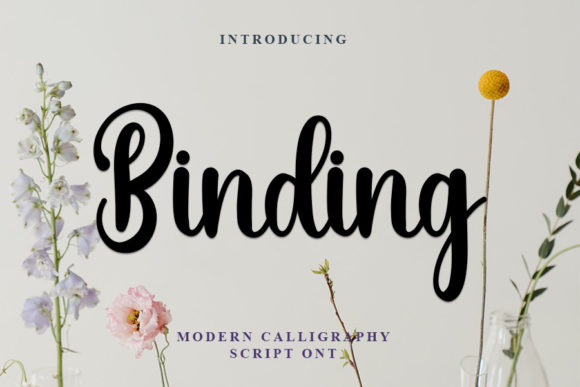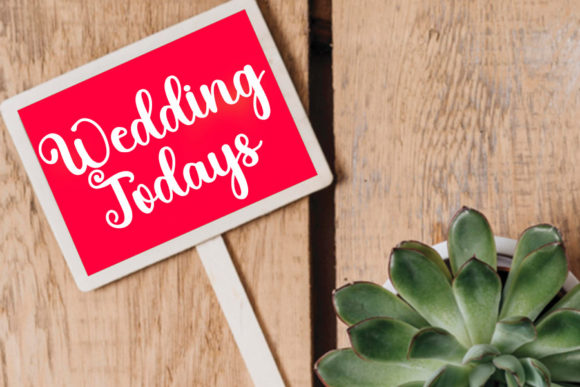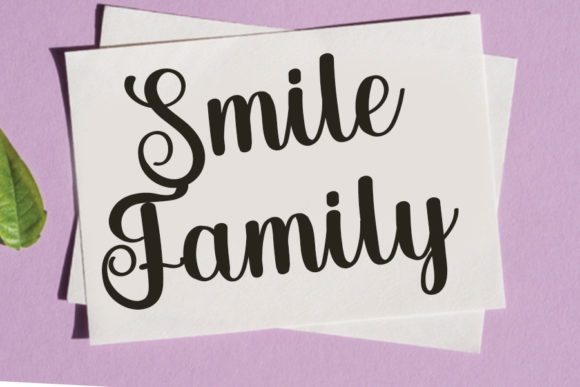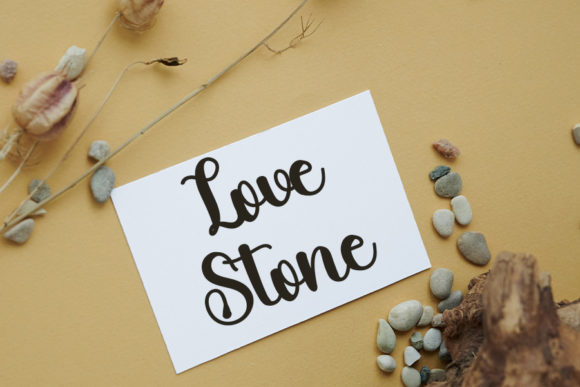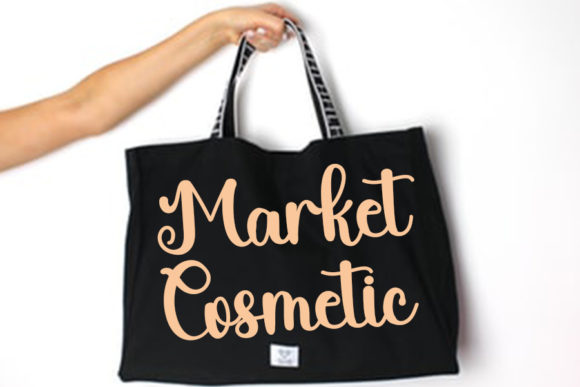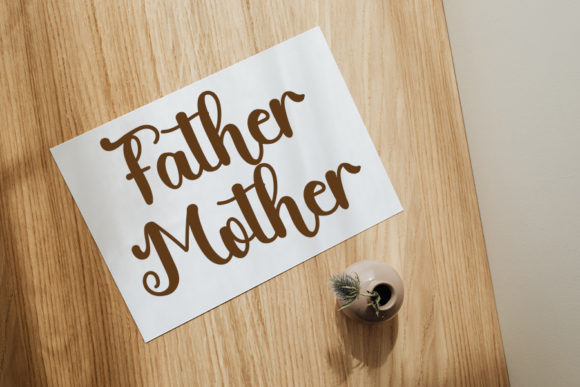
The Sweet Charm of Binding Font: A Designer’s Delight
I’ll never forget the time I was working on a stationery set for a client, and I just couldn’t find the right font to bring the whole design together. The project required something elegant, yet playful; something that would make the client’s business cards and letterheads stand out. That’s when I stumbled upon the Binding font, and it was love at first sight! 💕
Binding is an elegant and dainty handwritten font that features sweet and delicate swashes. This original look will appeal to a wide range of crafty ideas, from letterheads and titles to stationery. In this article, I’ll share my experience with Binding font, its features, and how to make the most of it in your designs.
An Honest Review of Binding Font
- 💫 Elegant and delicate swashes that add a touch of sophistication to any design
- 🎨 Versatile and suitable for a wide range of design projects, from stationery to titles and headings
- 🖌️ Beautifully crafted to evoke a sense of whimsy and playfulness
While Binding font is an excellent choice for many design projects, there are a few things to keep in mind:
- 🤔 Some swashes may not work well with certain letter combinations, so it’s essential to experiment and find the perfect fit
- ⚠️ The font’s delicate nature may not be suitable for designs that require a bold or heavy look
The Story Behind Binding Font
Binding font was designed with the intention of creating a beautiful, elegant, and delicate handwritten font that would evoke a sense of whimsy and playfulness. The designer aimed to create a font that would be versatile and suitable for a wide range of design projects, from stationery to titles and headings.
Q: What is the best way to use Binding font in my designs?
A: The best way to use Binding font is to experiment with different swashes and stylistic alternates to find the perfect fit for your design.
Q: Is Binding font suitable for body text?
A: While Binding font is highly legible, its delicate nature may not be suitable for body text. It’s best used for titles, headings, and other display text.